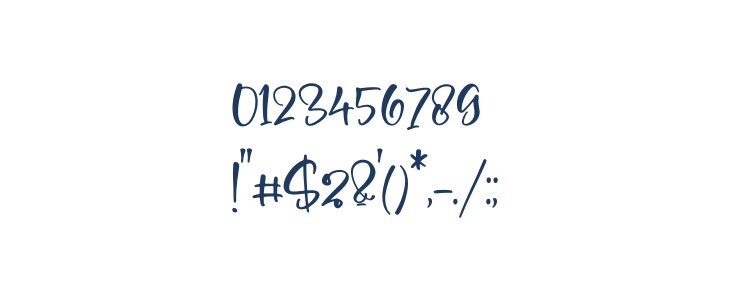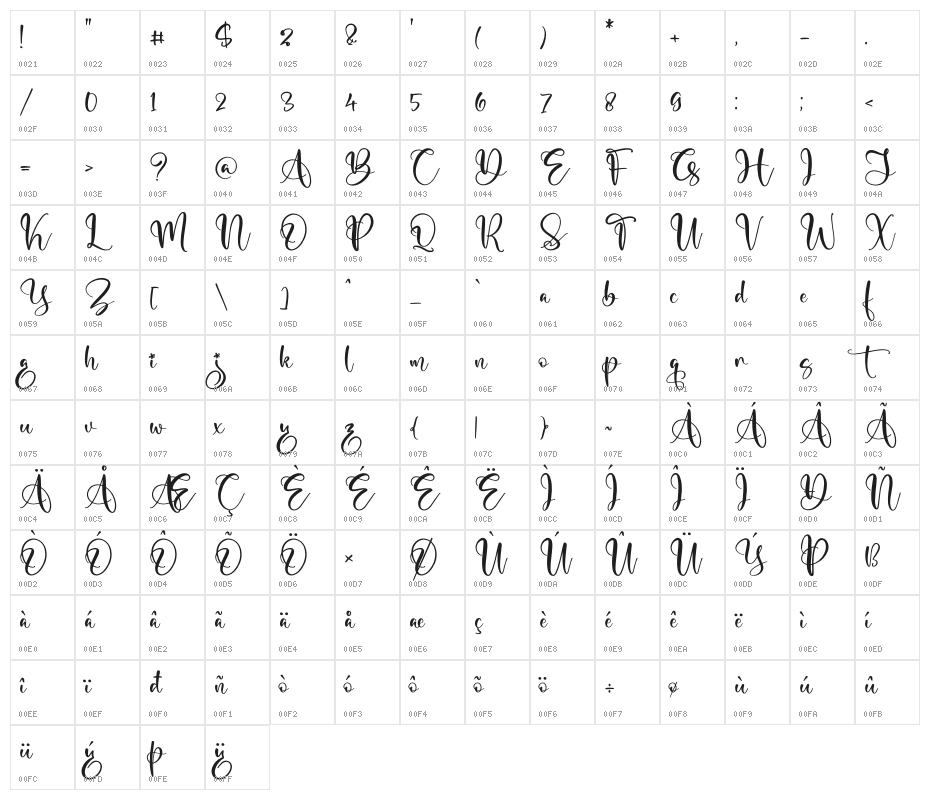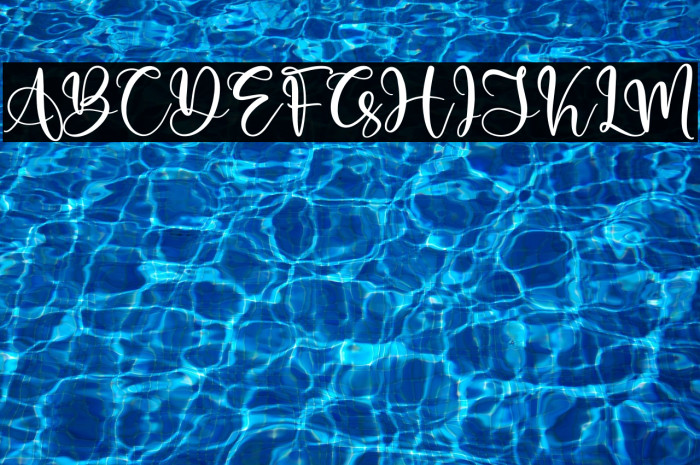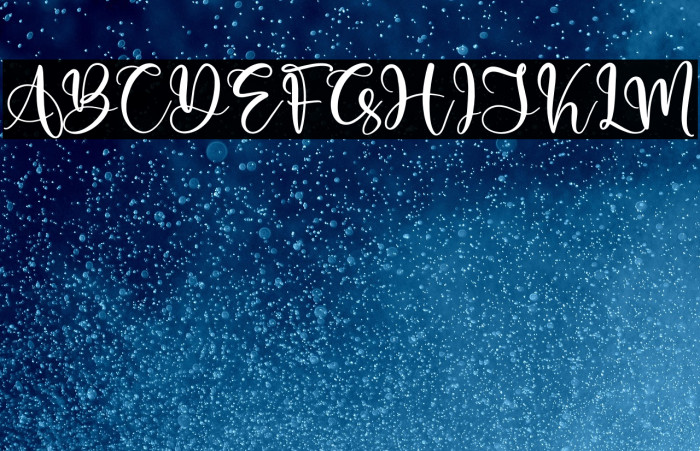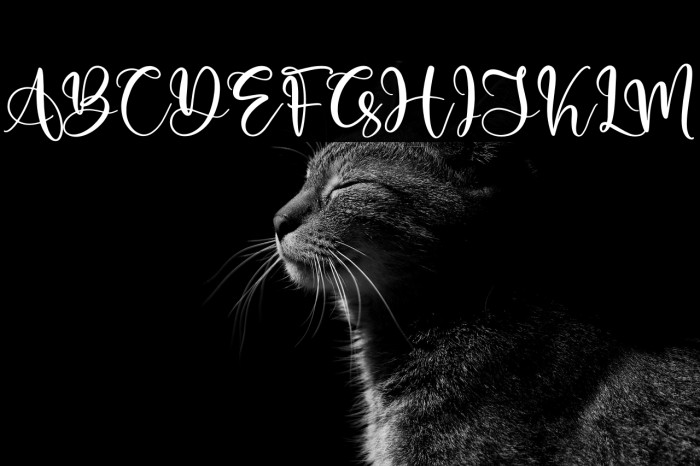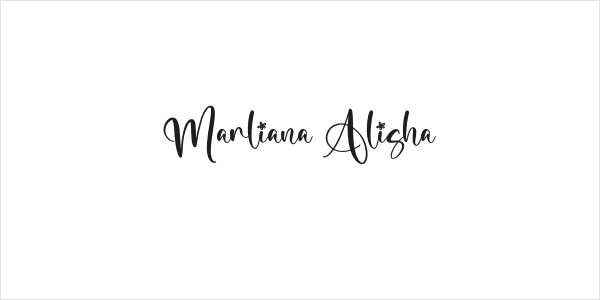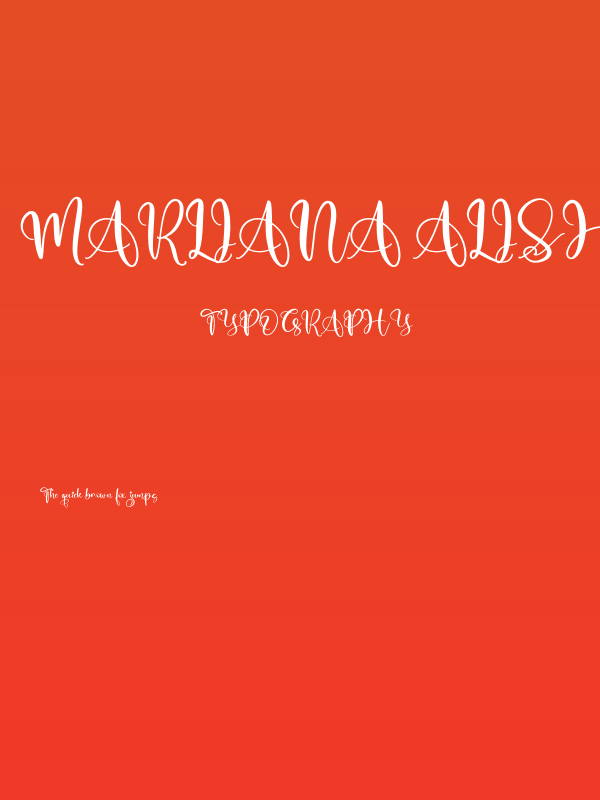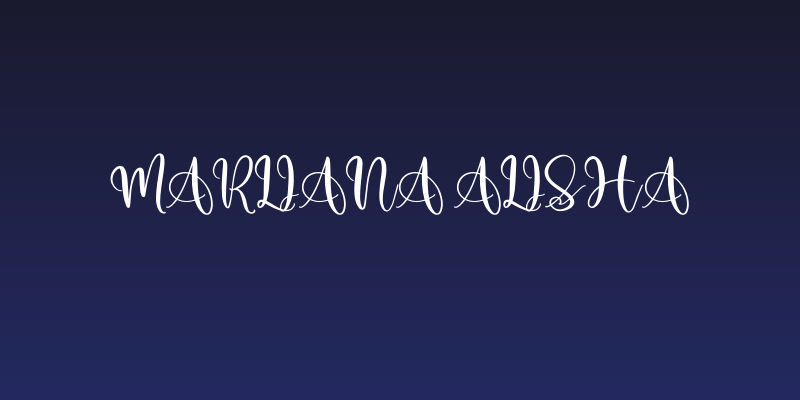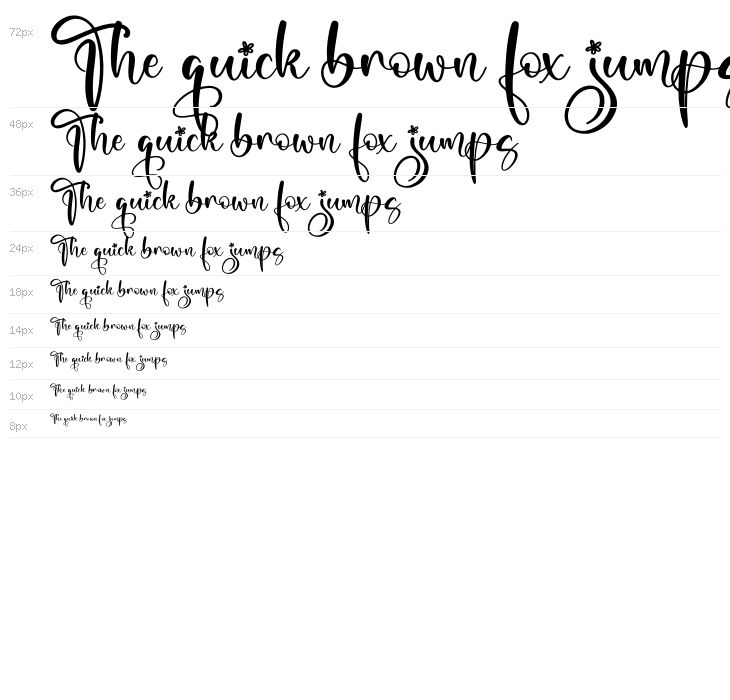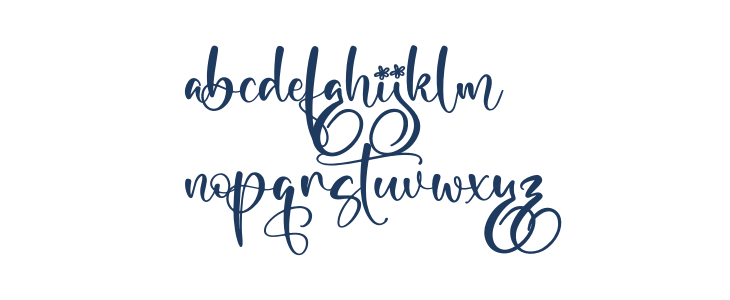
Marliana Alisha Font
Marliana Alisha Description
This font features an elegant and flowing script style, characterized by its intricate loops and swashes. The uppercase letters are particularly ornate, with each character exhibiting unique flourishes that add a touch of sophistication. The lowercase letters maintain a consistent style, with some characters featuring additional decorative elements, such as the 'h' and 'k'. The numbers are bold and maintain the script style, ensuring consistency across all characters. Special characters are designed with the same attention to detail, making them suitable for decorative purposes. This font is ideal for projects that require a touch of elegance and creativity.
| Use Case | Logos, Invitations, Decorative Text |
| Proposed Projects | Wedding invitations, branding, greeting cards, and elegant packaging. |